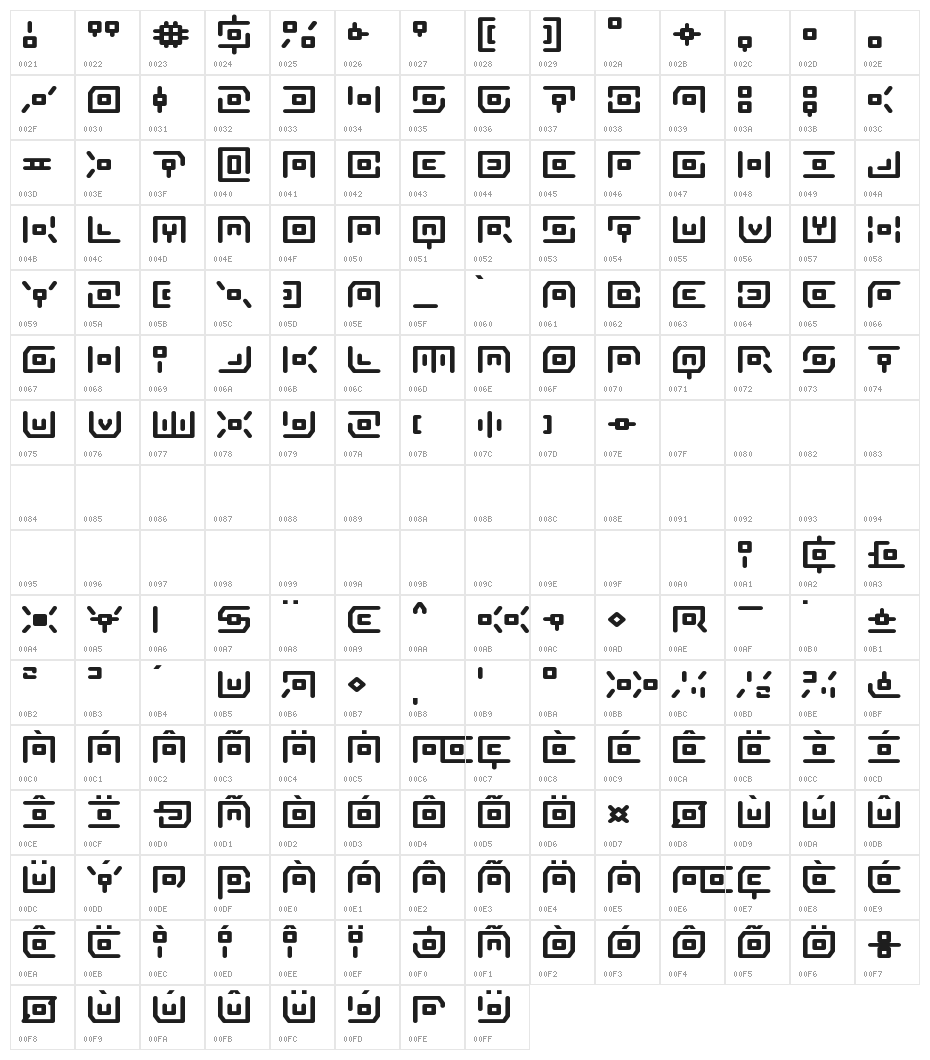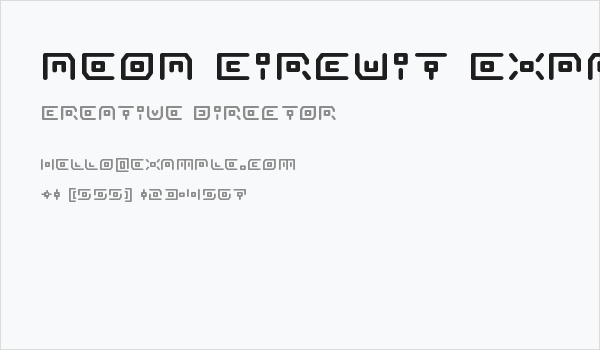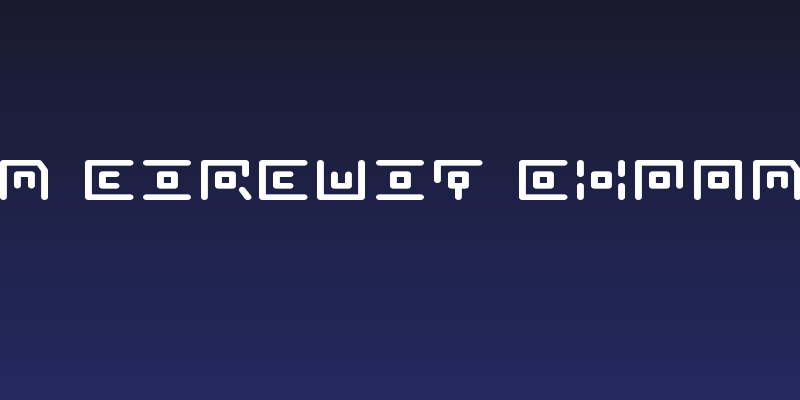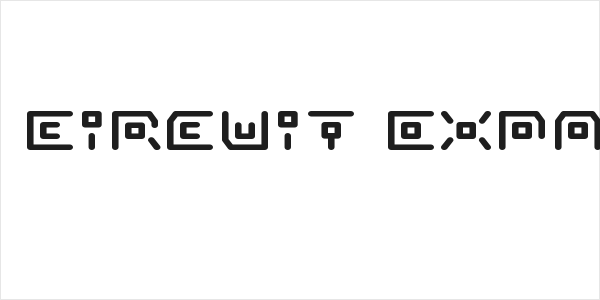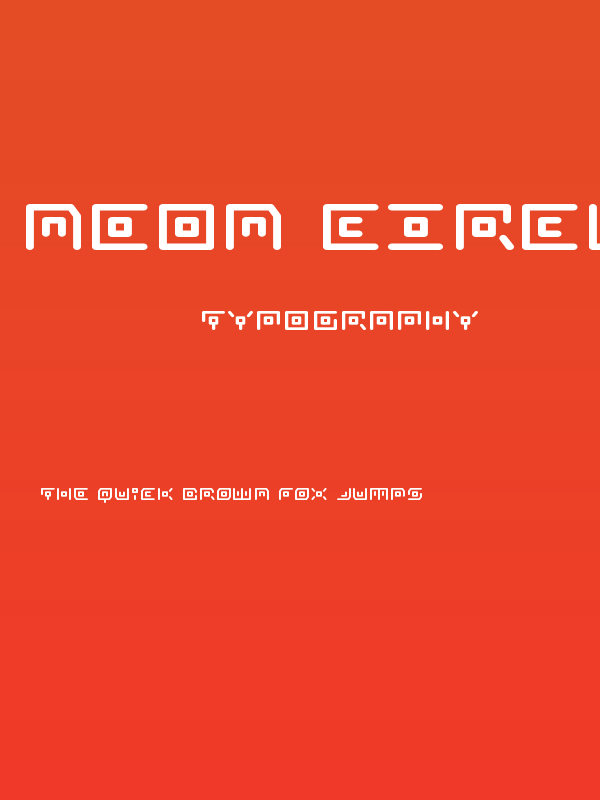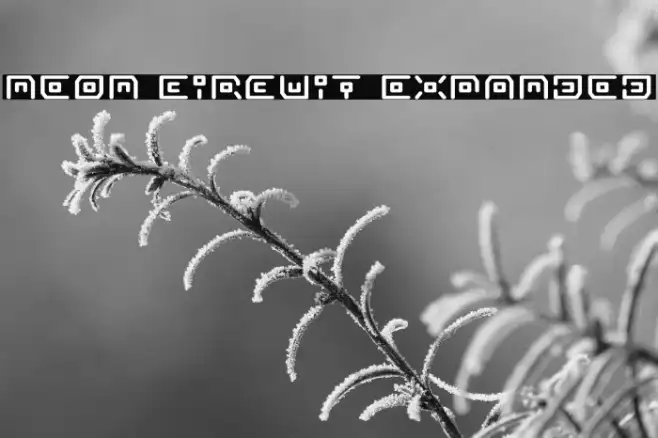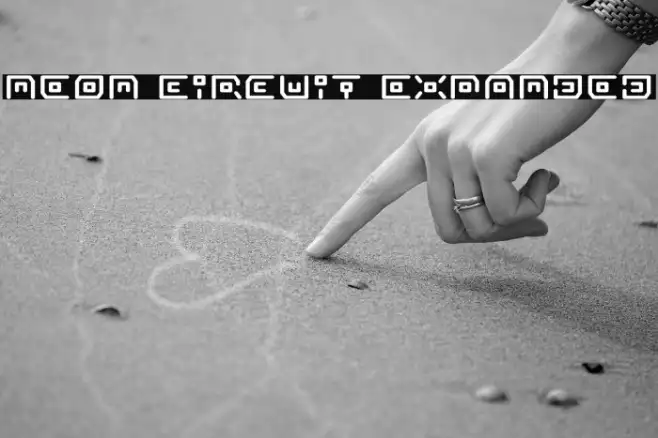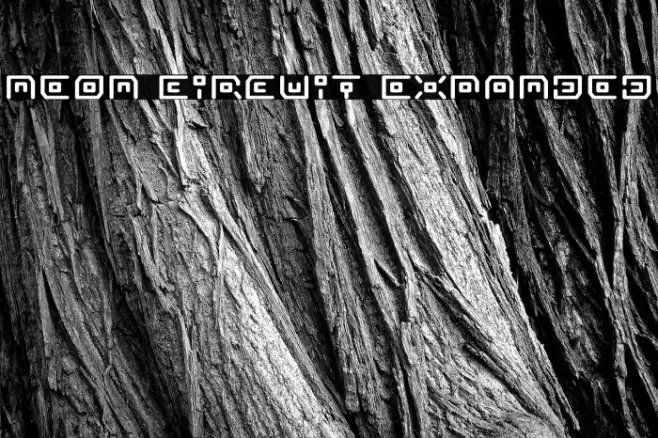
Neon Circuit Expanded Font
Neon Circuit Expanded Description
This font features a futuristic and digital aesthetic, reminiscent of neon lights and circuit board patterns. Each character is constructed with a series of geometric shapes, primarily squares and rectangles, connected by thin lines. The design is highly stylized, with a consistent use of sharp angles and straight lines, giving it a mechanical and electronic feel. The uppercase and lowercase letters maintain a uniform height, contributing to a monospaced appearance. The numbers and special characters are designed to match the overall theme, incorporating similar geometric elements. This font is ideal for projects that require a modern, tech-inspired look, such as digital interfaces, sci-fi themed designs, or branding for technology companies.
| Use Case | Logos, Headlines, Digital Interfaces |
| Proposed Projects | Ideal for tech branding, sci-fi designs, digital interfaces, and electronic music album covers. |